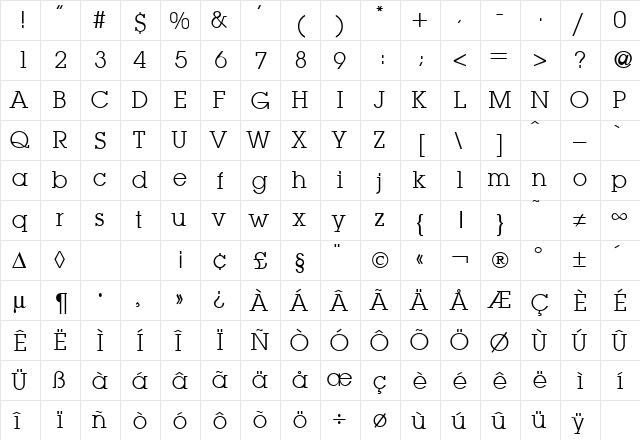
Lubbers Regular
Design Context for Lubbers Typeface
Lubbers offers clean, dependable letterforms without strong stylistic allegiance, making it a practical choice for designers who need flexibility.
Pro Tip: Use Lubbers in both headline and body roles to test its range before committing to a single application.